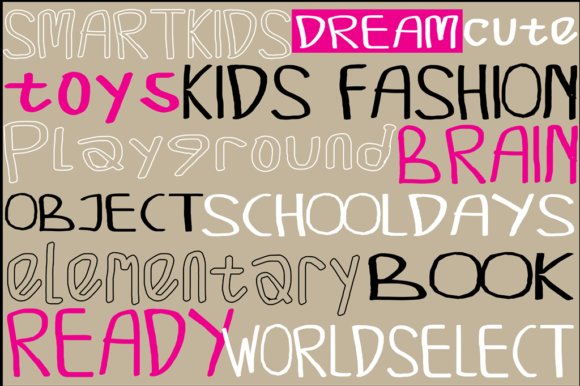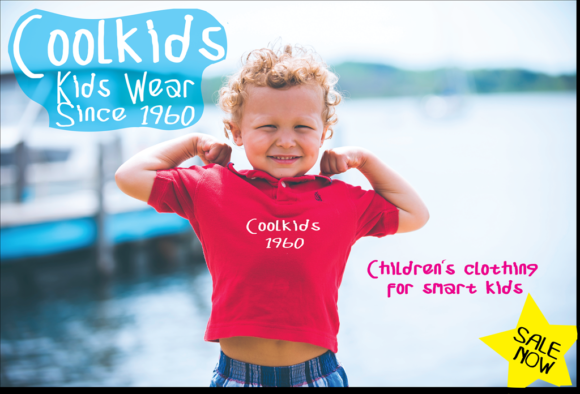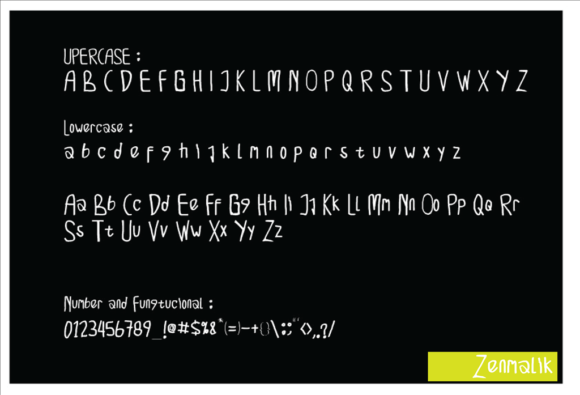
Introducing Coolkids Font: The Perfect Handwritten Font for Children-Themed Designs
Are you a designer or crafter looking for a unique and playful font to add a personal touch to your children-themed designs? Look no further than Coolkids Font! This charming handwritten font is perfect for creating fun and engaging designs that kids will love. In this article, we’ll take a closer look at the Coolkids Font, its features, and how you can use it to take your designs to the next level.
What is Coolkids Font?
Coolkids Font is a one-of-a-kind, simple, and sloppy handwritten font that’s designed to bring a smile to kids’ faces. Its unique and playful style makes it perfect for a wide range of design projects, from children’s books and educational materials to posters, flyers, and craft projects. Whether you’re a professional designer or a crafty DIY enthusiast, Coolkids Font is a great addition to your font collection.
Key Features of Coolkids Font
- Unique and Playful Style: Coolkids Font has a distinctive, hand-drawn look that’s both fun and engaging.
- Simple and Easy to Read: Despite its playful style, Coolkids Font is surprisingly easy to read, making it perfect for use in children’s books, educational materials, and other designs where legibility is important.
- Sloppy and Imperfect: The font’s sloppy, imperfect style gives it a charming, homemade feel that’s perfect for creating designs that look like they were made with love.
- Perfect for Children-Themed Designs: Coolkids Font is specifically designed with children in mind, making it the perfect choice for designs aimed at kids.
How to Use Coolkids Font in Your Designs
Coolkids Font is incredibly versatile and can be used in a wide range of design projects. Here are a few ideas to get you started:
- Children’s Books: Use Coolkids Font to create engaging and interactive children’s books that kids will love.
- Posters and Flyers: Add a playful touch to your posters and flyers with Coolkids Font, perfect for promoting kids’ events, parties, or activities.
- Craft Projects: Use Coolkids Font to add a personal touch to your craft projects, such as handmade cards, gift tags, or scrapbook pages.
- Educational Materials: Coolkids Font is a great choice for educational materials, such as worksheets, activity sheets, or educational posters.
Tips for Getting the Most Out of Coolkids Font
Here are a few tips for getting the most out of Coolkids Font:
- Combine with Bright Colors: Coolkids Font looks amazing when paired with bright, bold colors. Try combining it with colors like pink, blue, yellow, or green to create a fun and playful look.
- Experiment with Different Sizes: Coolkids Font looks great in a variety of sizes, from small and delicate to large and bold. Experiment with different sizes to find the one that works best for your design.
- Add Some Texture: Add some texture to your design by combining Coolkids Font with textures like glitter, polka dots, or stripes.
Coolkids Font is a unique and playful handwritten font that’s perfect for children-themed designs. Its simple, sloppy style makes it easy to read and gives it a charming, homemade feel. Whether you’re a professional designer or a crafty DIY enthusiast, Coolkids Font is a great addition to your font collection. With its versatility and flexibility, you can use it in a wide range of design projects, from children’s books and educational materials to posters, flyers, and craft projects. So why not give Coolkids Font a try and see how it can add a personal touch to your designs?